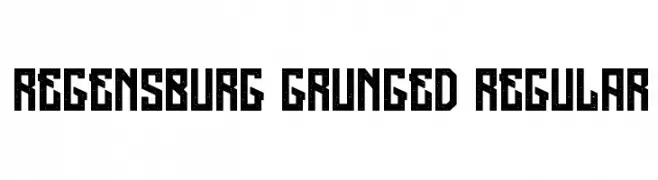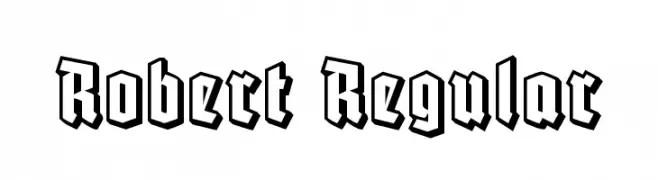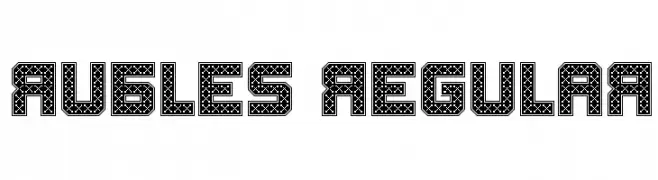
• Regensburg Italic
A bold, angular italic font with a dynamic and modern style.
• Regensburg Grunged Regular
A bold, geometric font with a grunge texture for an edgy, modern look.
• Regensburg Grunged Italic
A bold, angular, grunge-textured italic font with a modern, dynamic style.
• Remained Regular
A modern, geometric font with concentric line patterns for a bold visual impact.
• Remained Black Regular
A bold, geometric font with parallel lines creating a modern, dimensional look.
• Robert Regular
A bold, angular blackletter-inspired font with a modern 3D shadow effect.
• Rubles Regular
A bold, decorative font with geometric patterns inside each character.
• Rubles Bold
A bold, decorative font with intricate geometric patterns.
• Rubles 3D Regular
A bold, 3D decorative font with a geometric pattern inside each character.
• Russian Land Shadow Regular
A bold, decorative font with intricate shadow effects and ornate details.